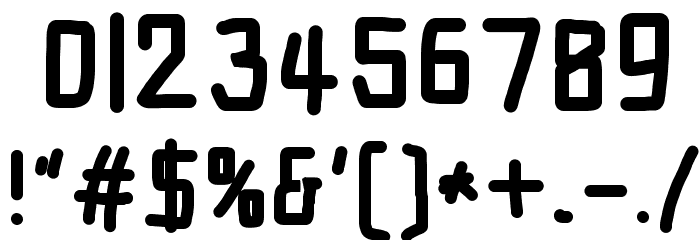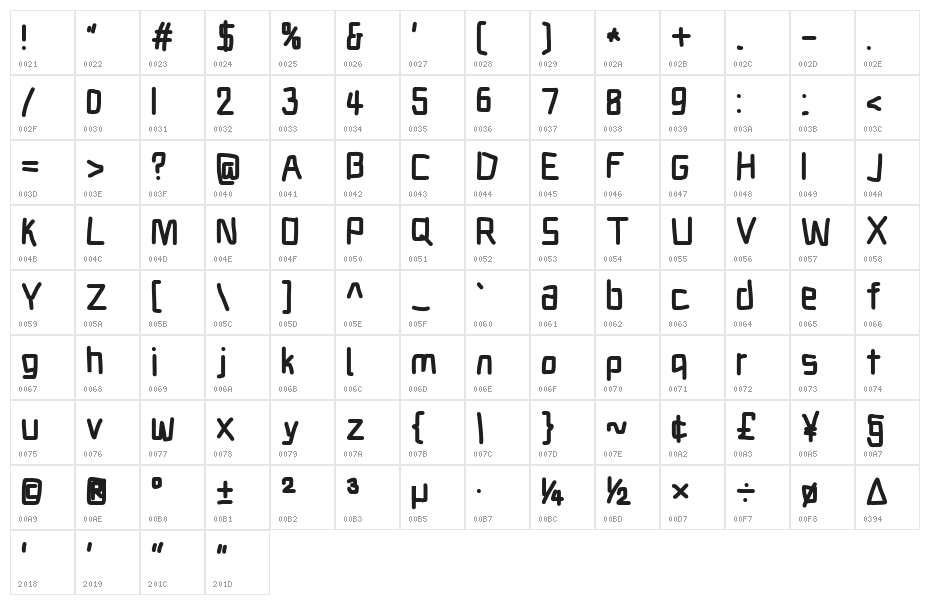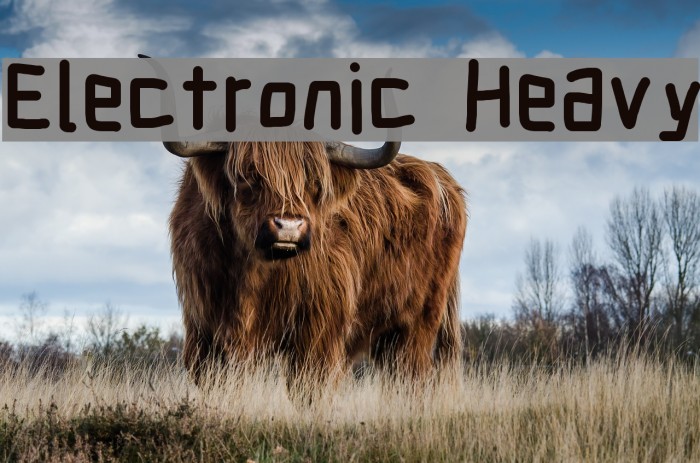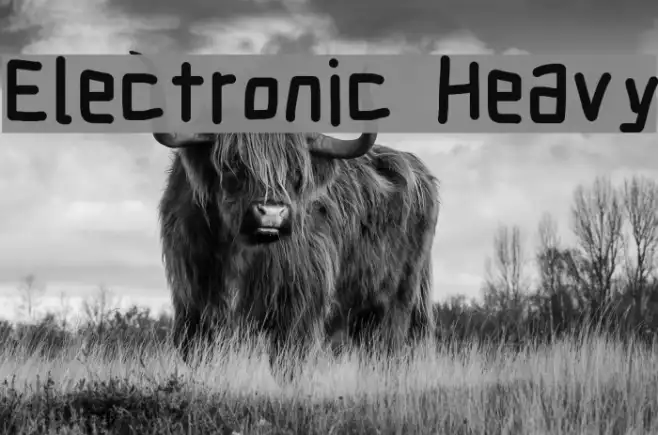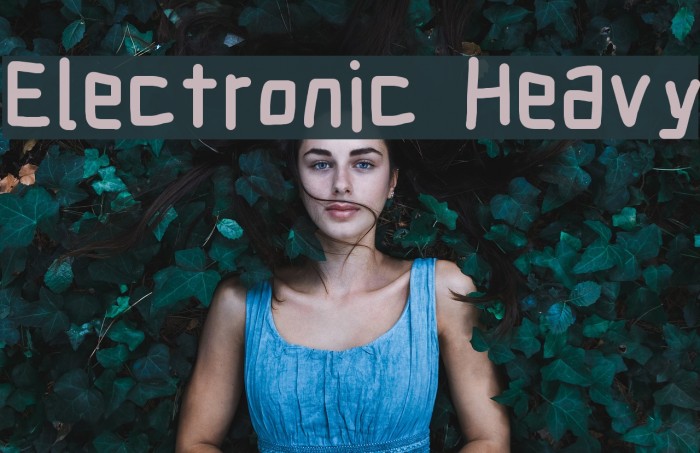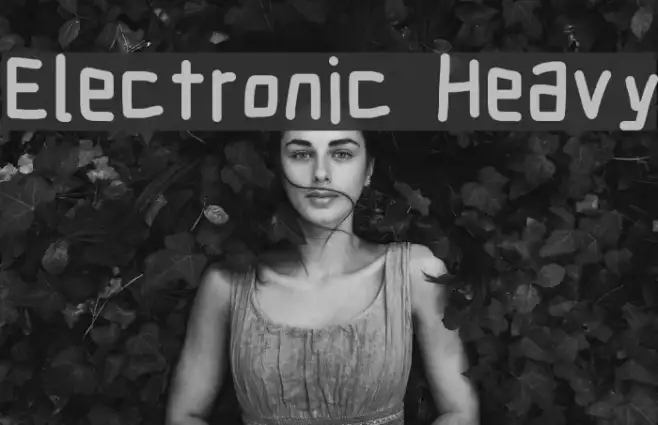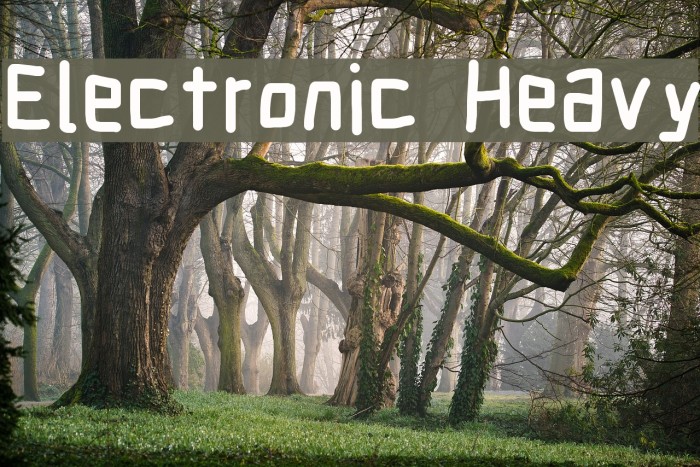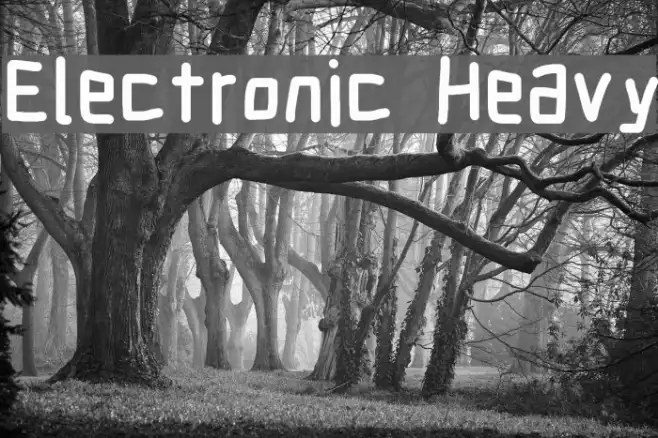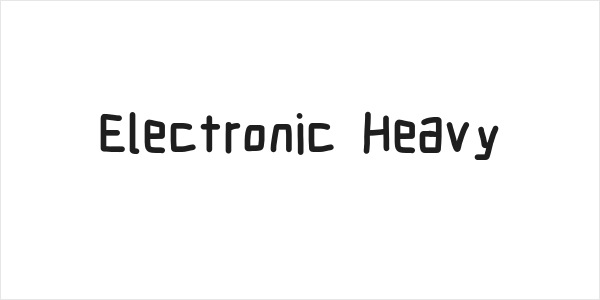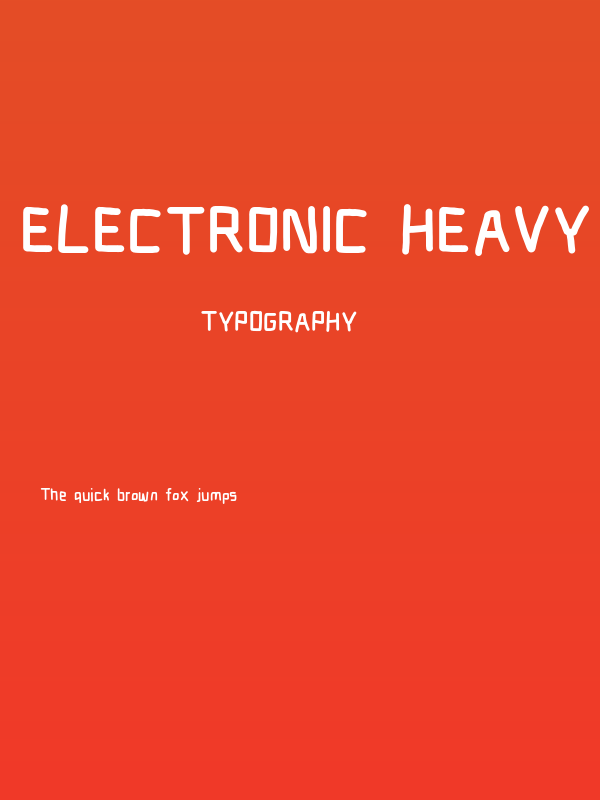
Electronic Heavy Font
Electronic Heavy Description
This font features a bold, rounded style with a modern and slightly futuristic appearance. The characters are uniform in width, giving it a monospaced feel, yet they maintain a playful and approachable aesthetic. The uppercase letters are tall and slightly condensed, while the lowercase letters are more rounded and open. The numbers and special characters follow the same design principles, ensuring consistency across all glyphs. The overall look is clean and legible, making it suitable for digital interfaces and technology-themed projects. The strokes are consistent in thickness, providing a medium contrast that enhances readability.
| Use Case | Headlines, Logos, Digital Interfaces |
| Proposed Projects | Ideal for digital interfaces, tech branding, video game design, and educational materials. |